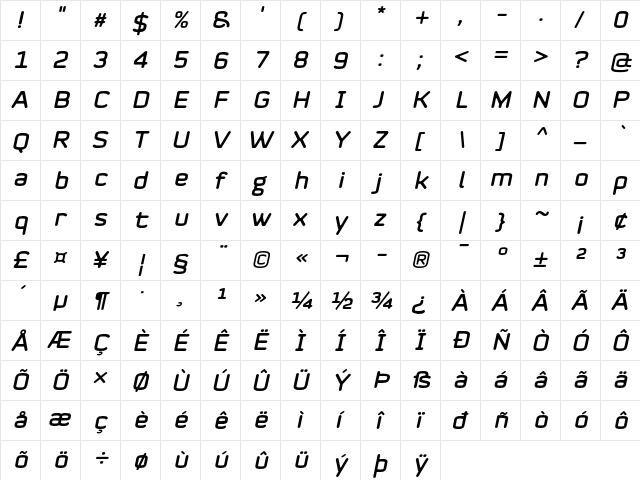
Mystag Italic
| Foundry | 7NTypes |
| Designer | Situjuh Nazara |
Design Context for Mystag Typeface
Mystag is a composed and adaptable typeface that performs quietly and consistently across a wide range of design contexts. The slanted form adds forward momentum and visual energy.
Pro Tip: Use Mystag for emphasis, pull quotes, and subheadings where its slanted energy can add rhythm to the layout.